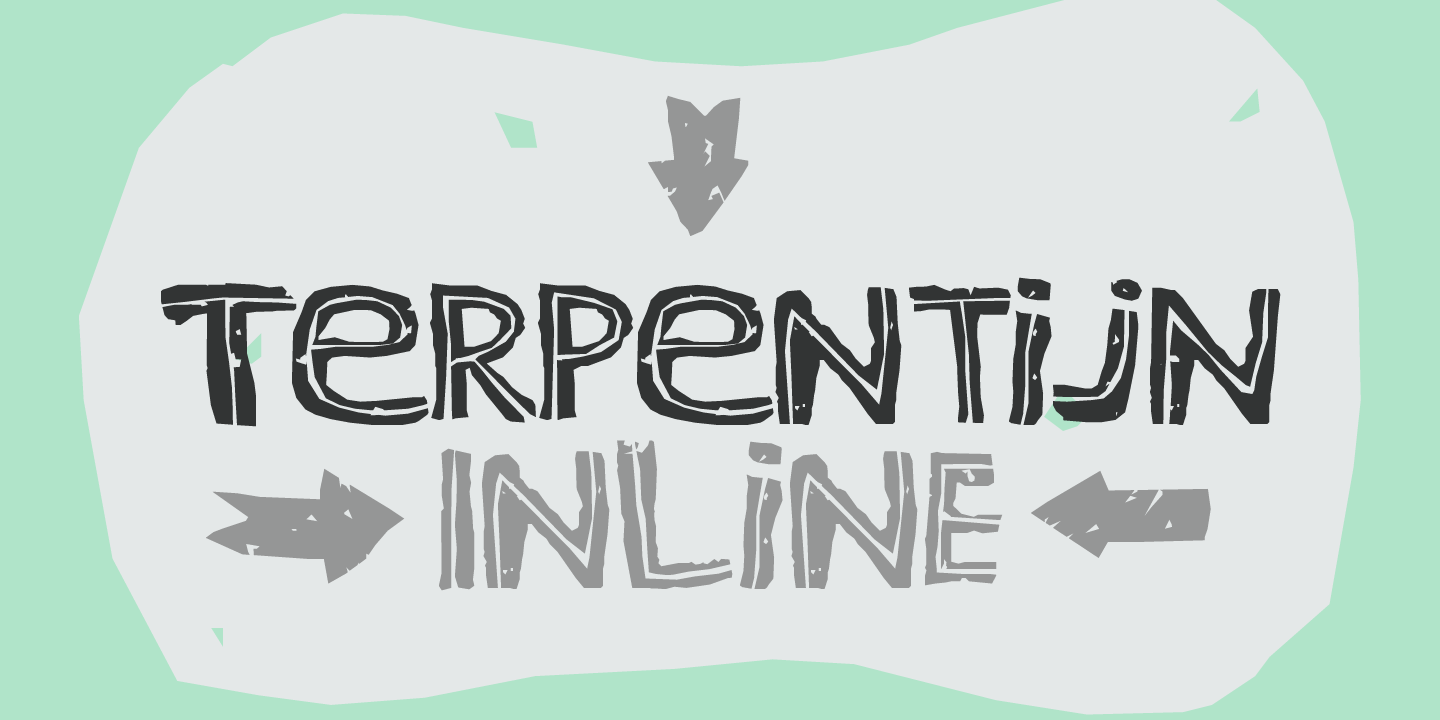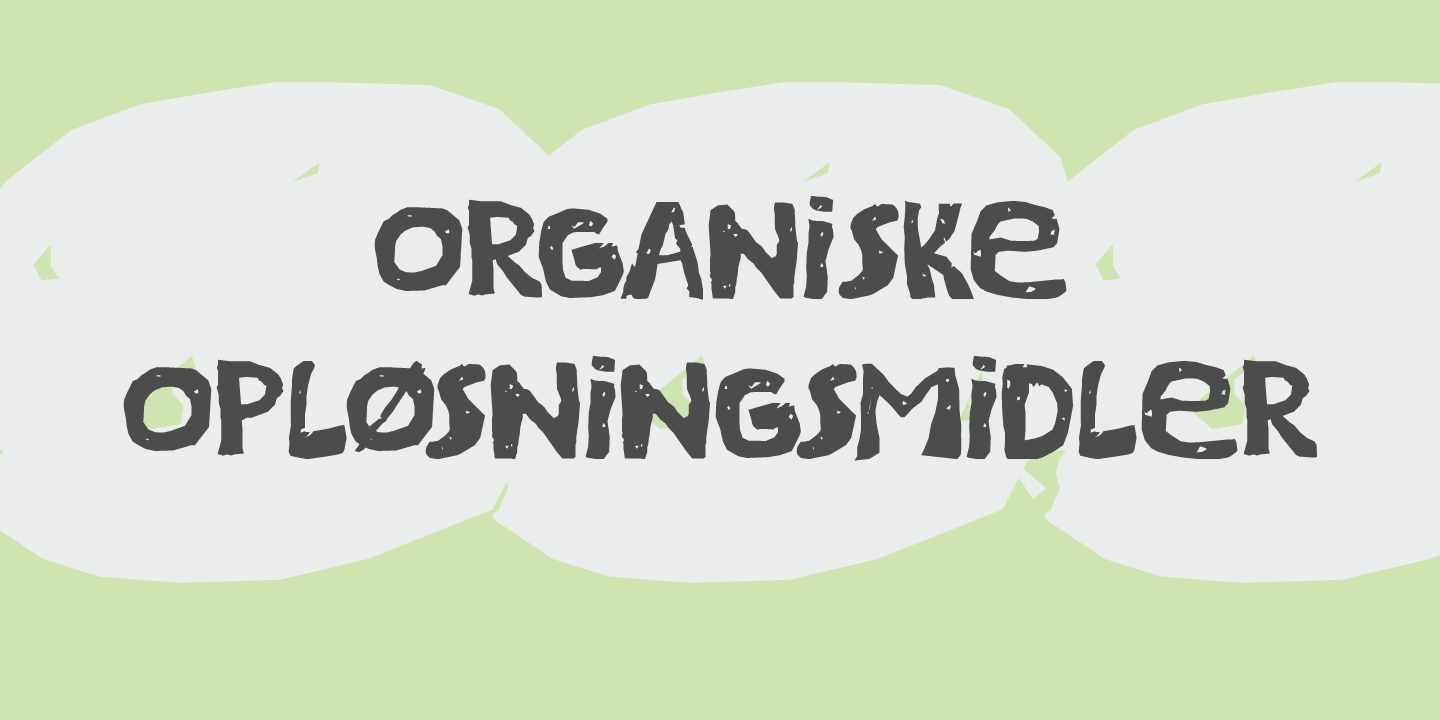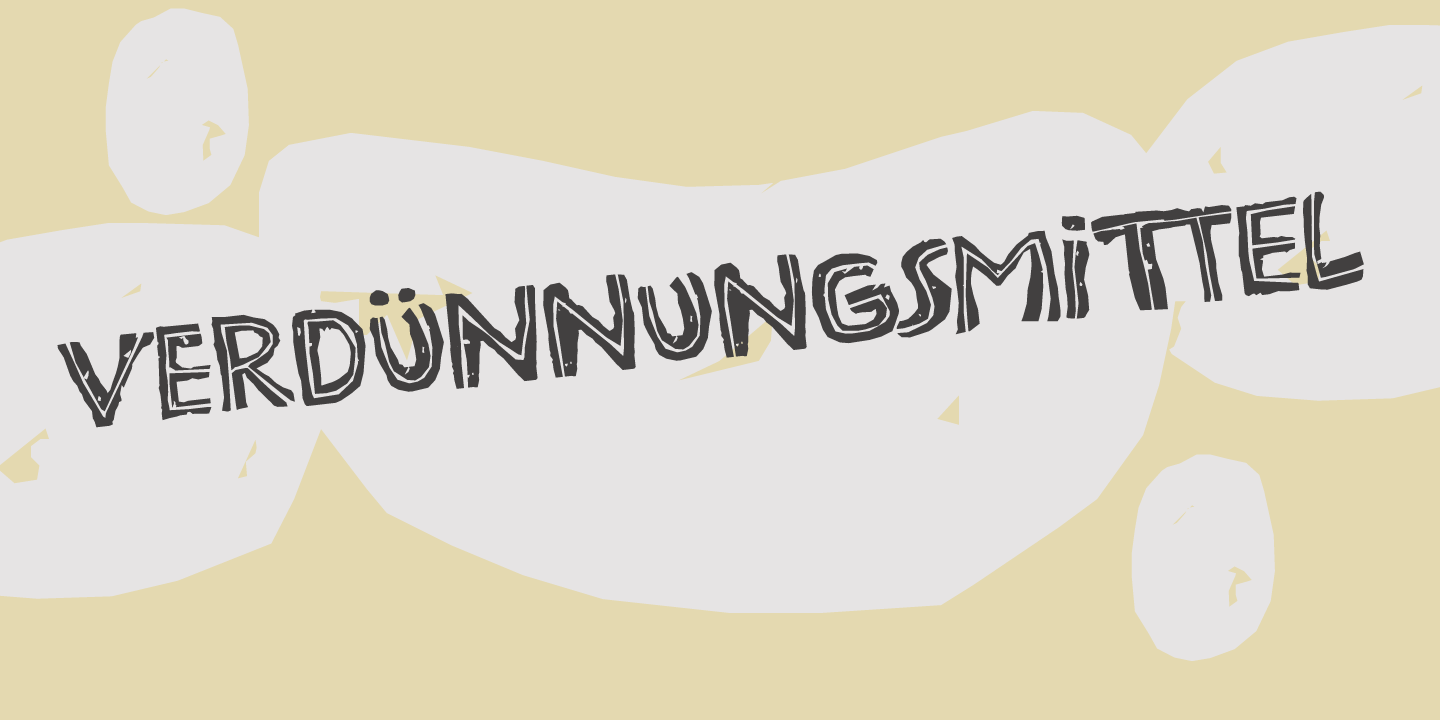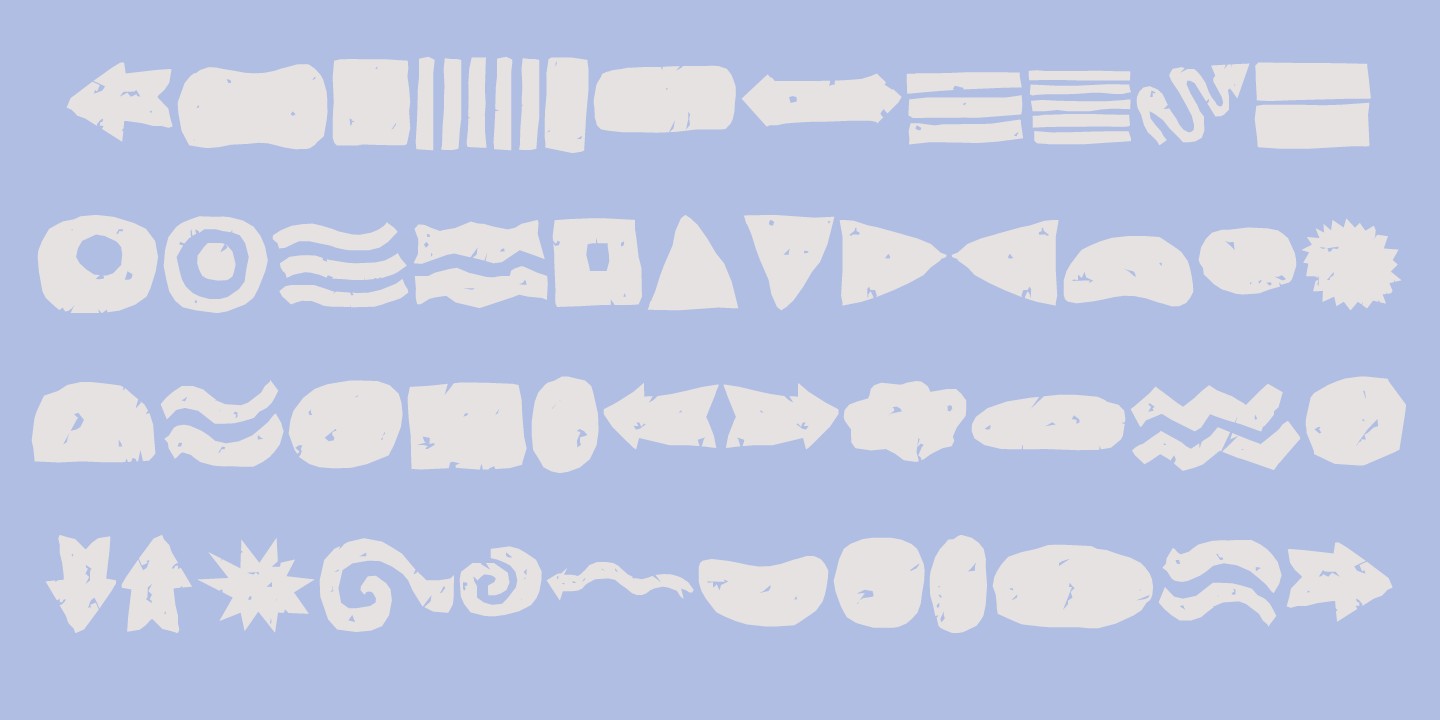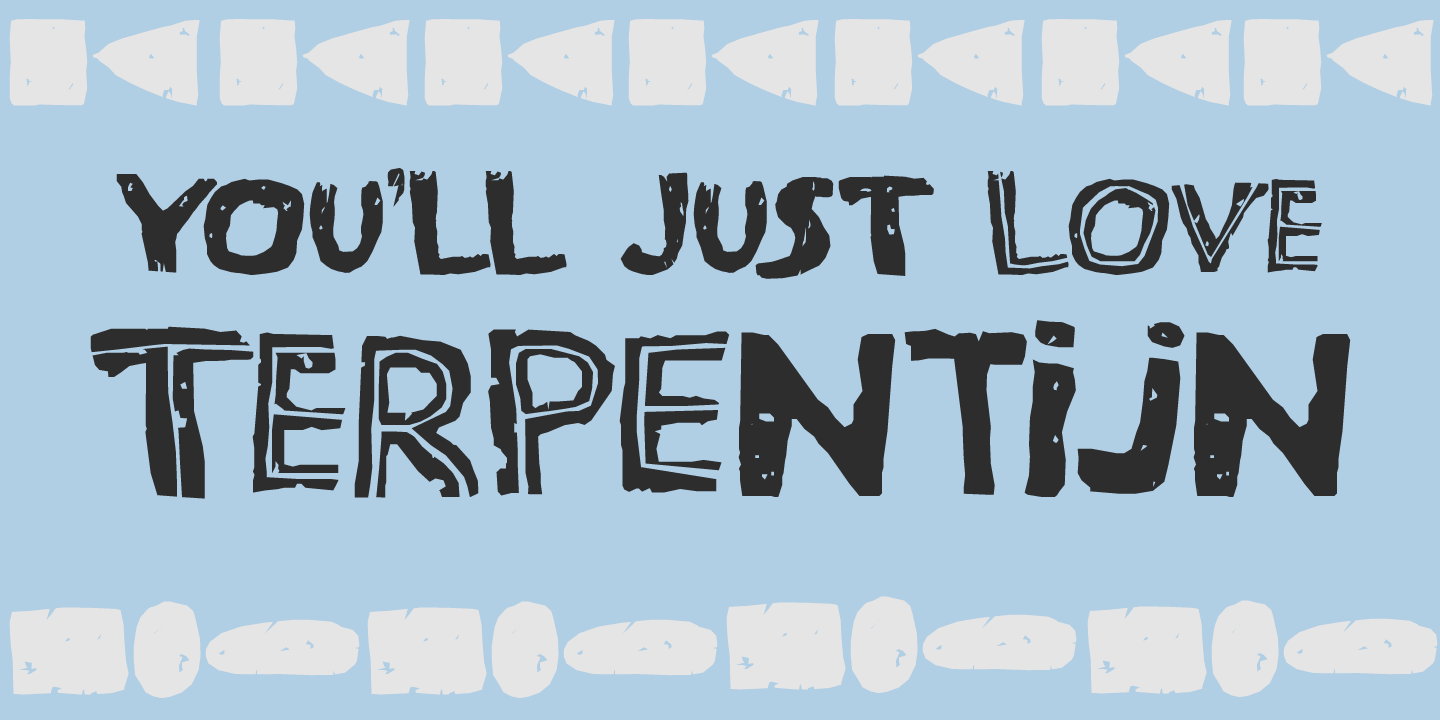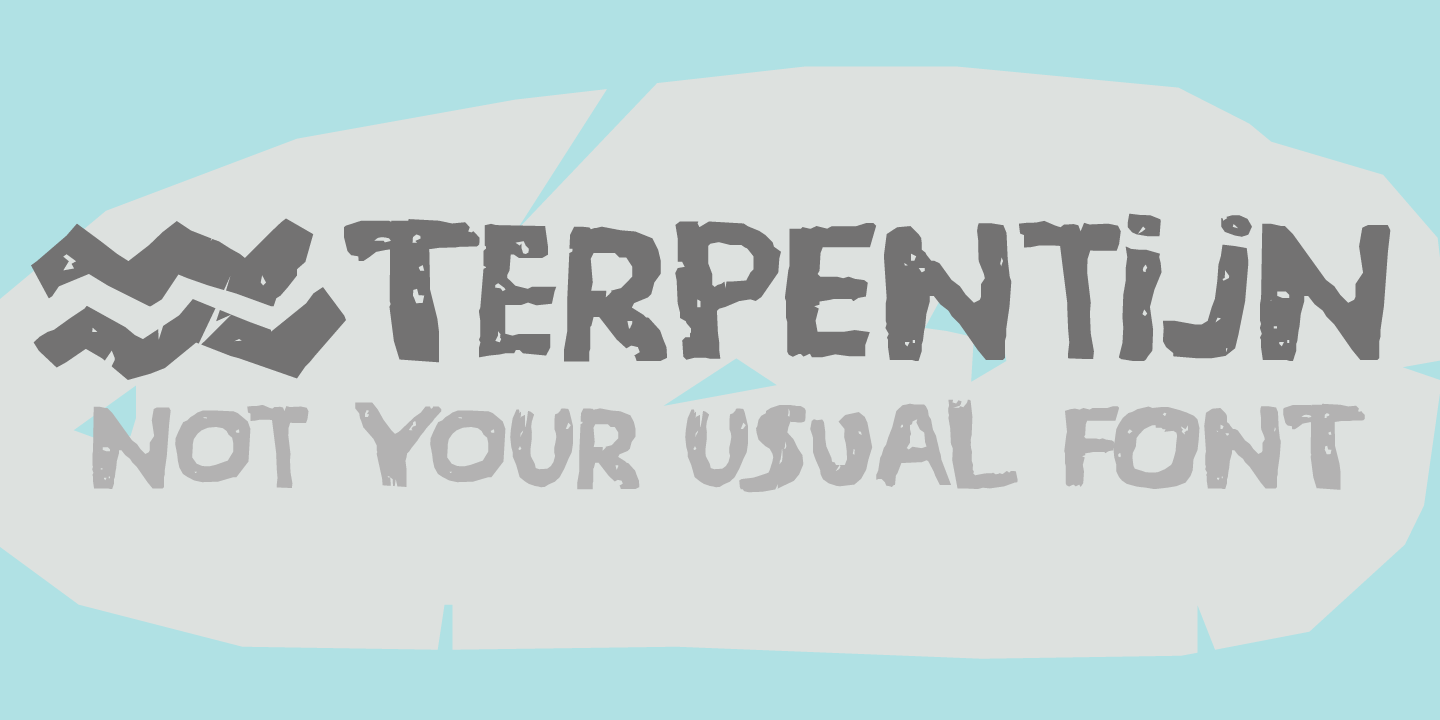
Terpentijn Family (3 fonts)
Terpentijn is a handmade typeface with a serious twist. It is very uneven, very unusual, and, if I may say so myself, very adorable. Terpentijn has that ‘eroded’ look, which will make your designs stand out. It comes in a regular and an inline version, plus a handy shapes pack, which will add that extra wow to your work. Besides Dutch, terpentijn speaks a lot of languages!
OpenType features: Alternates